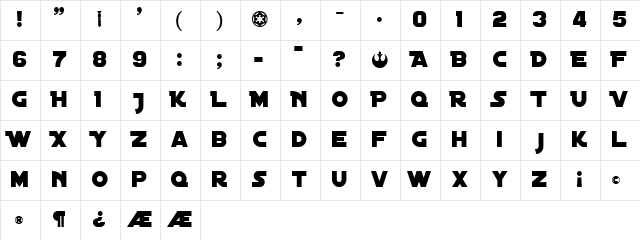
Distant Galaxy Regular Free Font
Distant Galaxy Regular
Design Context for Distant Galaxy
Distant Galaxy is a composed and adaptable typeface that performs quietly and consistently across a wide range of design contexts.
Pro Tip: Use Distant Galaxy in both headline and body roles to test its range before committing to a single application.